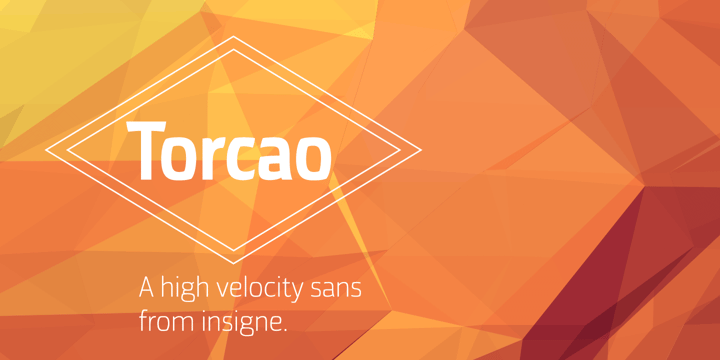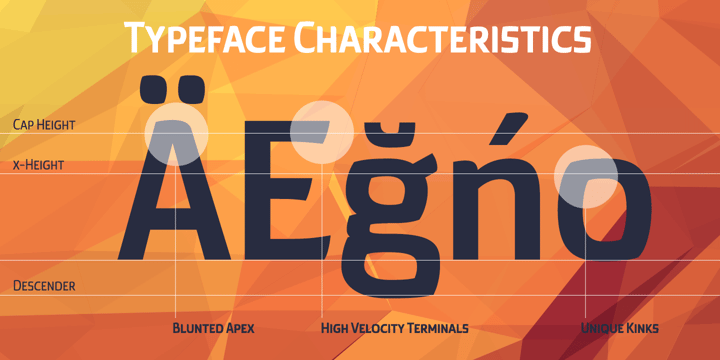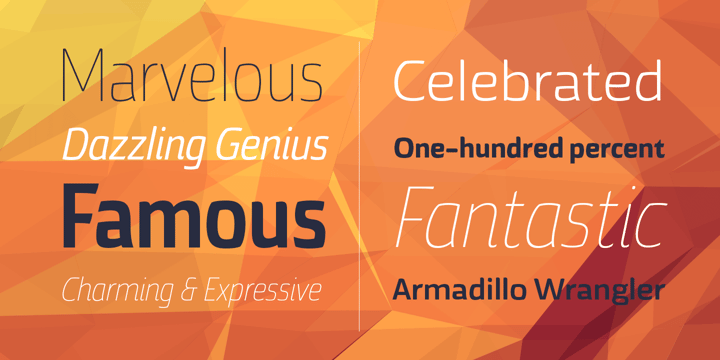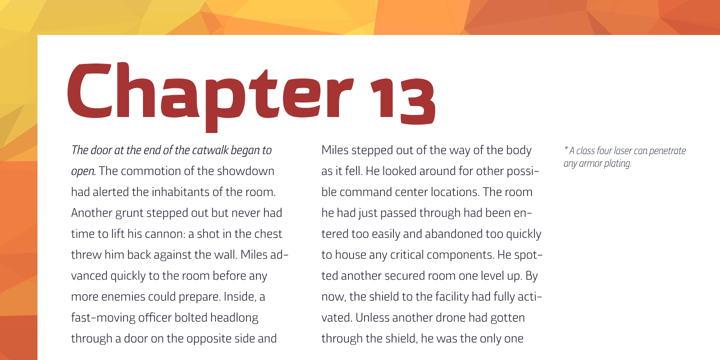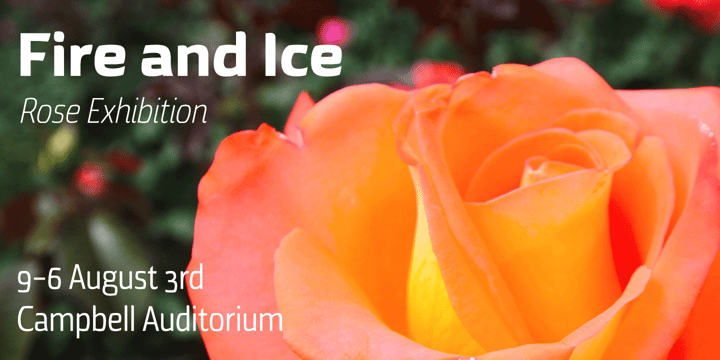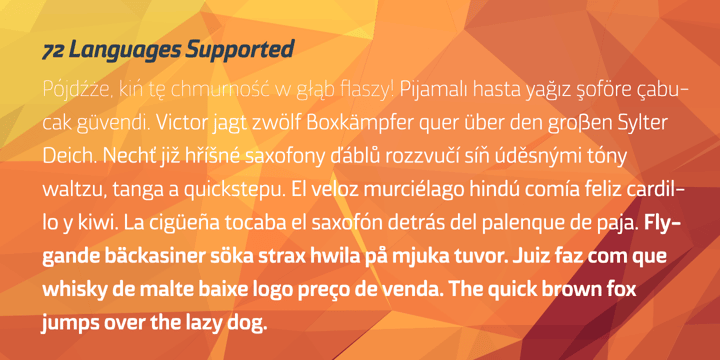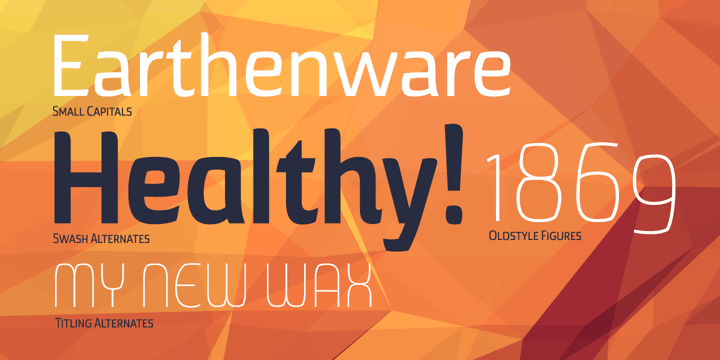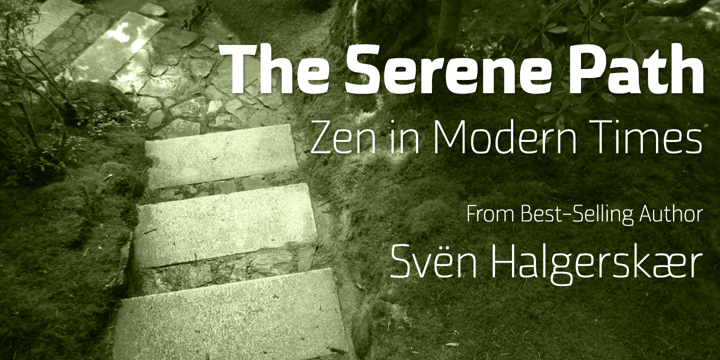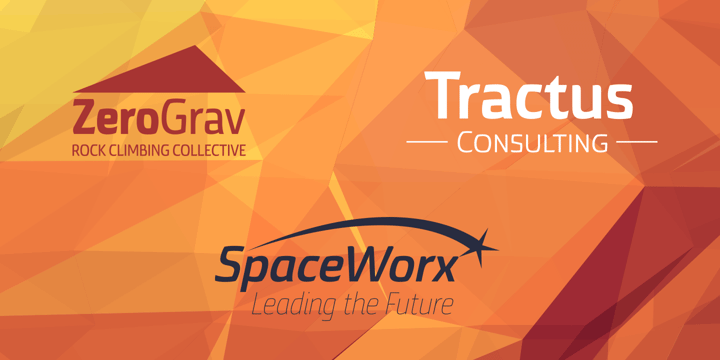
Torcao
Buy NowTorcao is one of the sporks of the font universe, a useful and functional outlier. Half square, half circle, this uncommon squircle of a family with its asymmetry of curved and angular shapes drives through headlines and body copy with forward velocity. The robust, technical appearance is light-hearted and inviting, and its organic nature plays off of its one-of-a-kind kinks and hybrid forms.
Torcao is not merely an experimental font, though. The figures have been crafted and refined into a functional, hard-working typeface that lends itself to many sizes and environments. The font family features a tall x-height and light modulation, which give the typography its unique color highly effective in headlines but still quite legible in longer text.
This family contains a comprehensive range of nine weights--slender to black--and features condensed and extender selections for a complete set of forty-eight fonts. The font has been decked out for experienced typographers, together with swash alternates and simplified titling. The typeface also contains a range of numeral sets, together with fractions and old-style figures. OpenType-capable programs including Quark or the Adobe suite allow quick changes to ligatures and alternates. Previews of these options can be found in the .pdf brochure.
Torcao also features the glyphs to enable all Central, Eastern, and Western European languages. In all, the font supports around forty languages that utilize the prolonged Latin script, making it an excellent option for multi-lingual publications and packaging.
Simple, technical, and open, the Torcao type family could just be the perfect choice for your web type or print project.